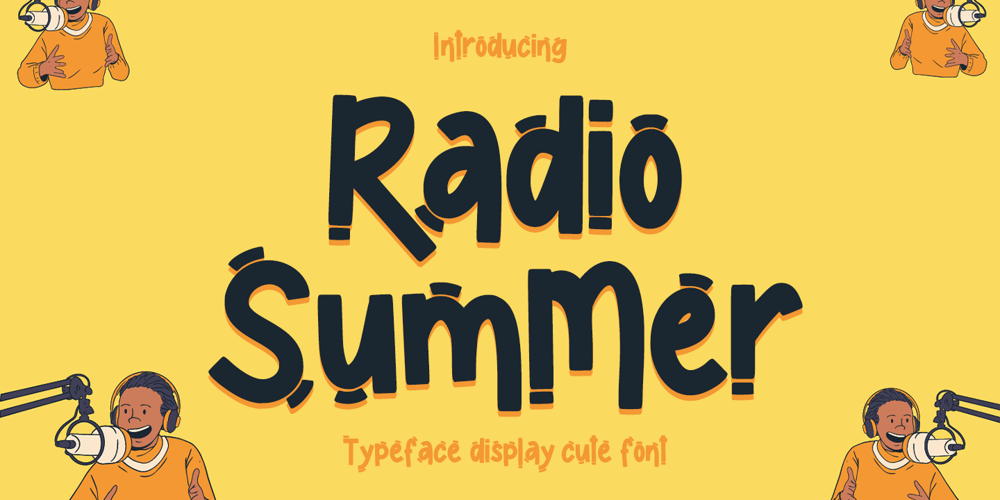
Radio Summer Font Family was designed by Muhammad Zaini and published by Cocodesign. Radio Summer contains 1 styles and family package options. Radio Summer Handwriting, simple, and cute font. Its simplicity made this font can be used for wide ranges of design projects, especially designs that need handwritten and cuteness touch.